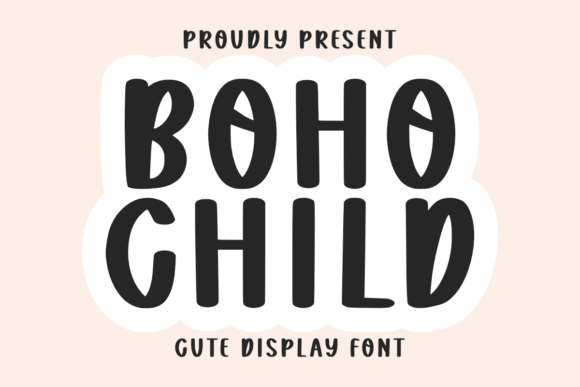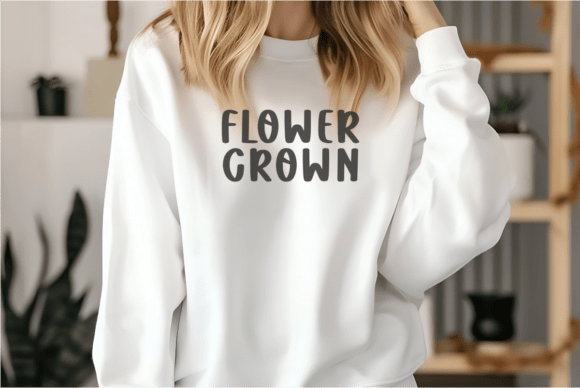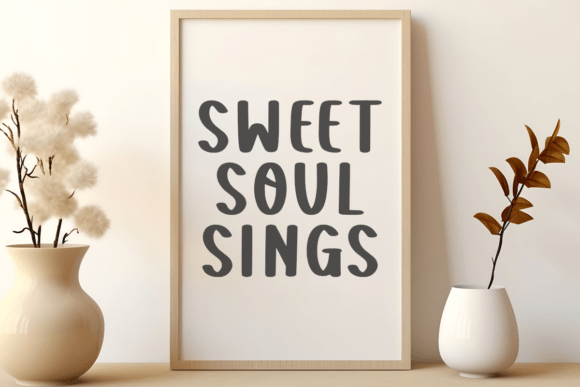
Boho Child Font: A Cute & Playful Display Font for DIY Projects
About the Boho Child Font
From logos to headlines, the Boho Child Font is the perfect choice for making a lasting impression. Boho Child is a bold and fun display font with a modern bohemian twist. Featuring tall, rounded letters and a touch of quirkiness, it’s perfect for branding, kids fashion labels, playful posters, and DIY projects. Boho Child stands out with a cute vibe and laid-back personality.
Boho Child excels in headlines, short taglines, and playful branding applications where its bold, rounded forms create a strong visual impact. It’s ideal for projects targeting a younger demographic or those with a bohemian, free-spirited aesthetic, such as children’s apparel, craft businesses, or event invitations. However, its unique character makes it less suitable for body text or UI elements where high readability is paramount. The large x-height and quirky letterforms can hinder legibility in extended text.
Pairing Boho Child with a clean sans-serif like Open Sans for body copy provides a pleasing contrast, balancing its playful energy with crisp readability. Alternatively, a delicate script font can add a touch of elegance and sophistication, while a geometric sans-serif offers a modern counterpoint to its bohemian charm.
The font’s overall personality is best described as cheerful and approachable, conveying a sense of fun and youthful energy. Its slightly irregular forms avoid being overly saccharine, maintaining a cool, contemporary feel.
Boho Child Font Usage Examples
Boho Child Font Example